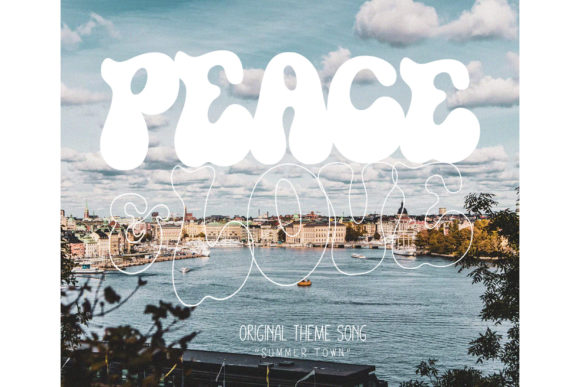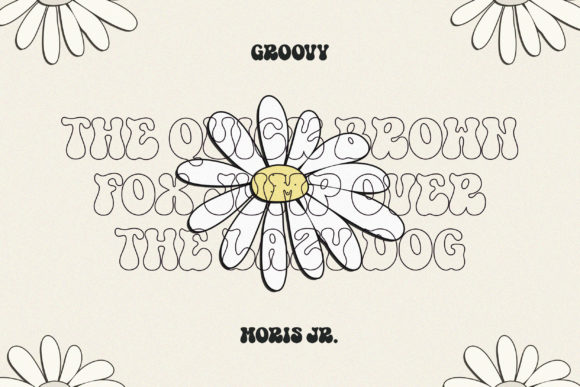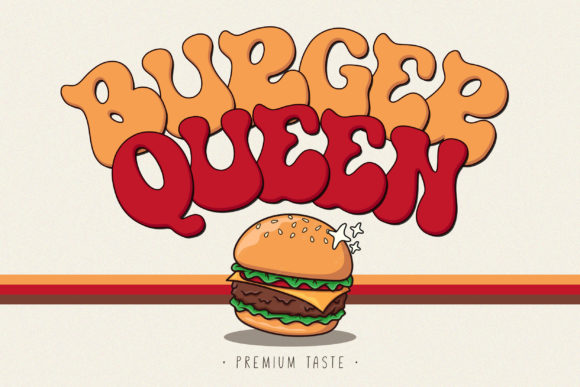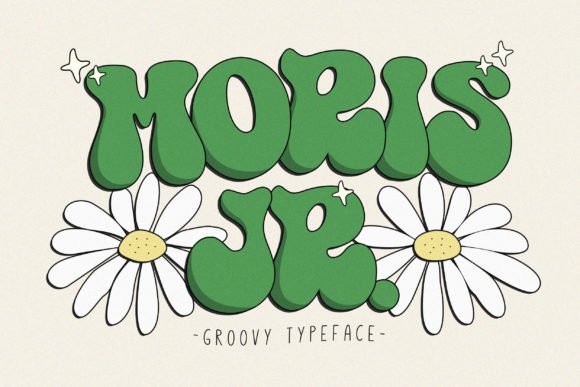
Introduction to Moris JR. Font
Moris JR.
is a retro styled and bold display font No matter the topic, this font will be an incredible asset to your fonts’ library, as it has the potential to elevate any creation.
Key Features of Moris JR. Font
Why Choose Moris JR. Font?